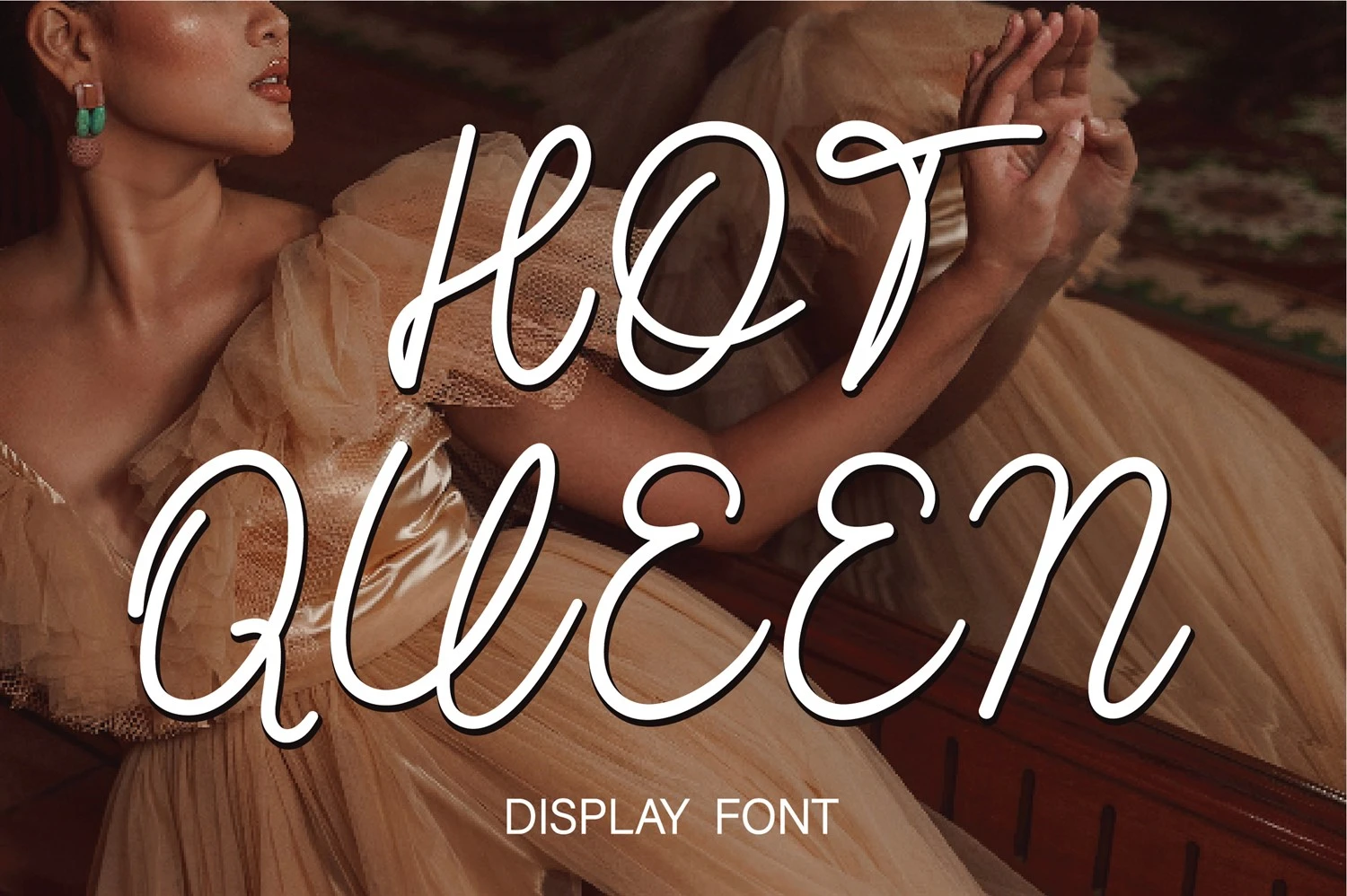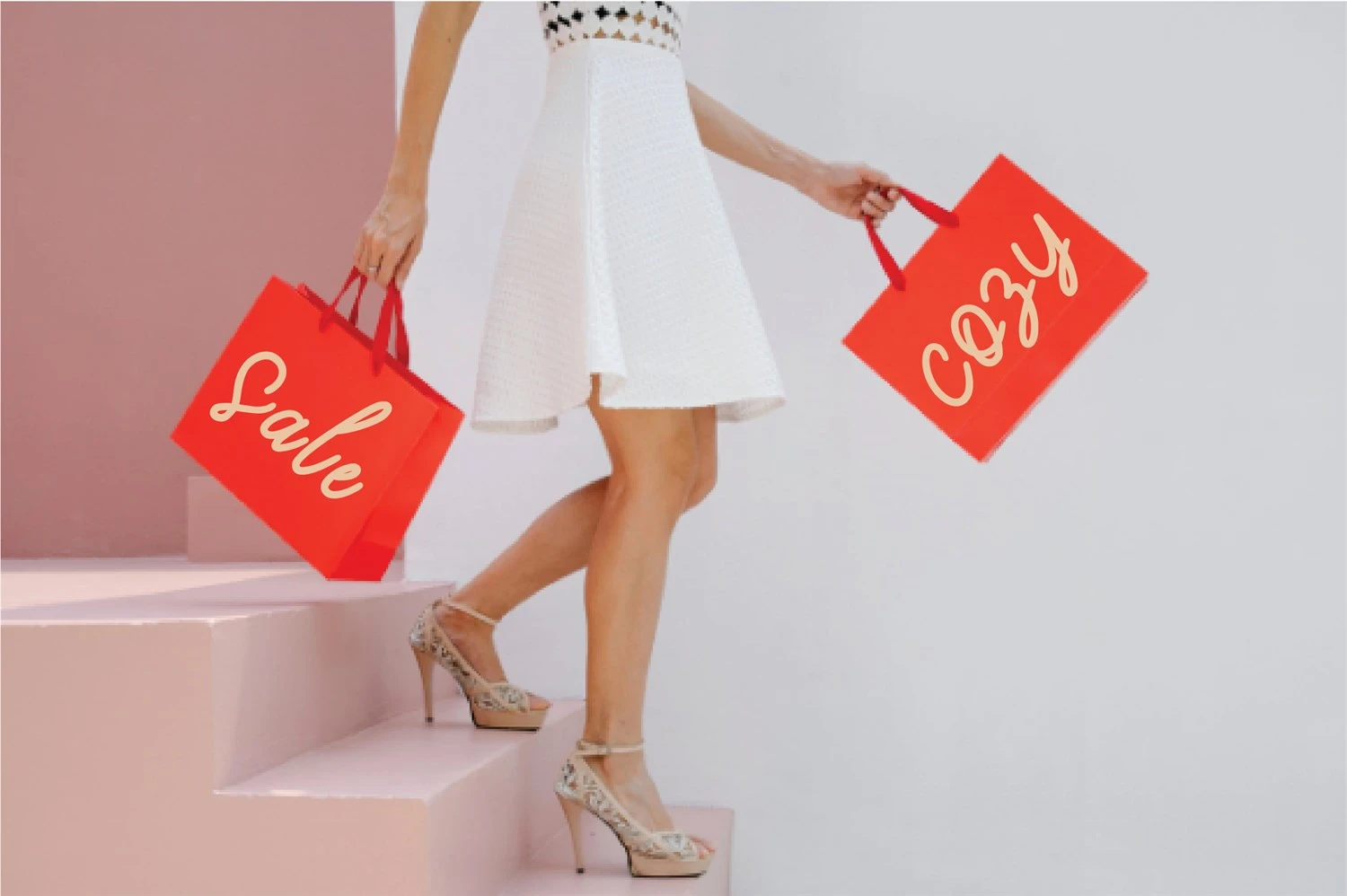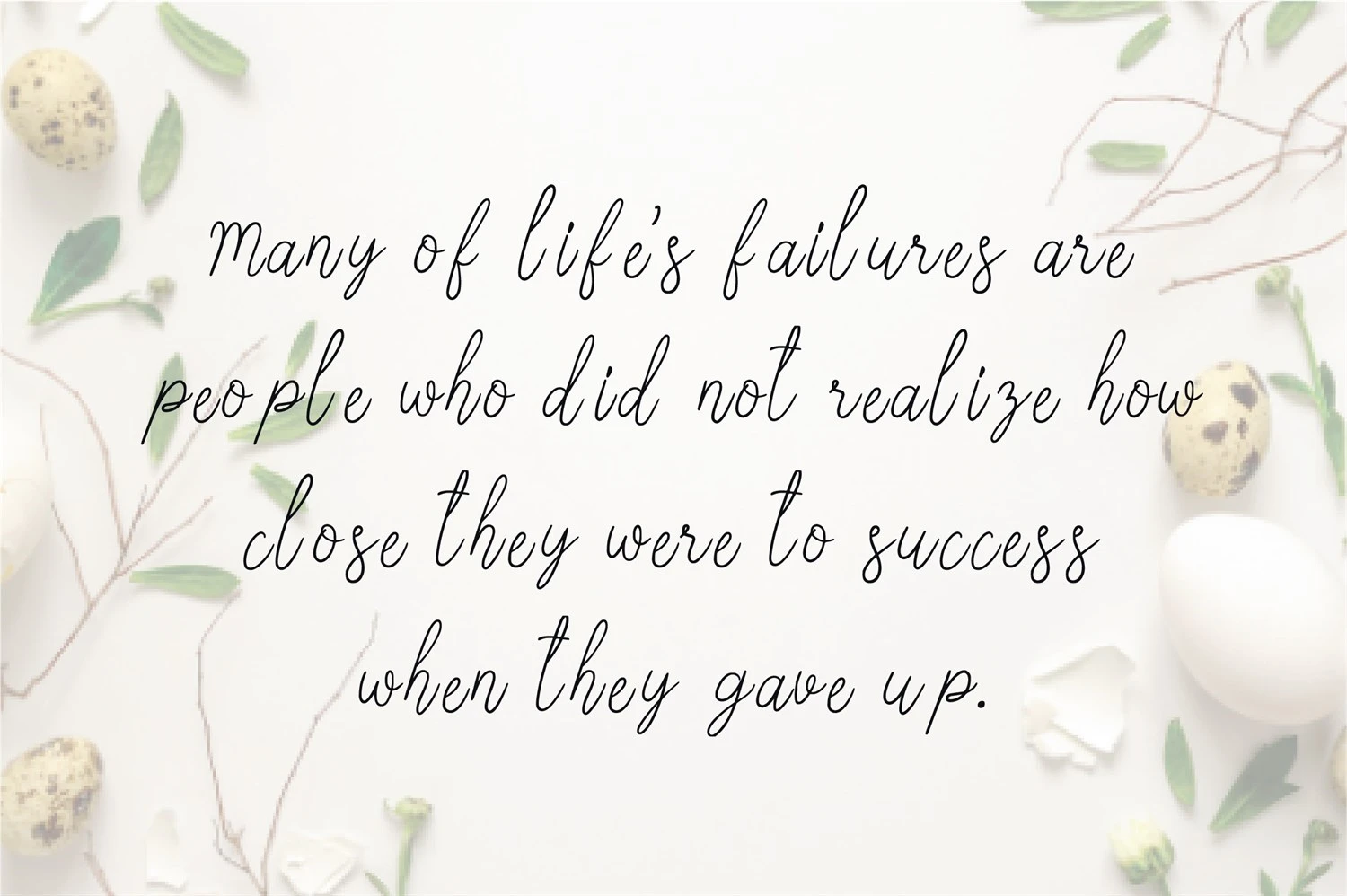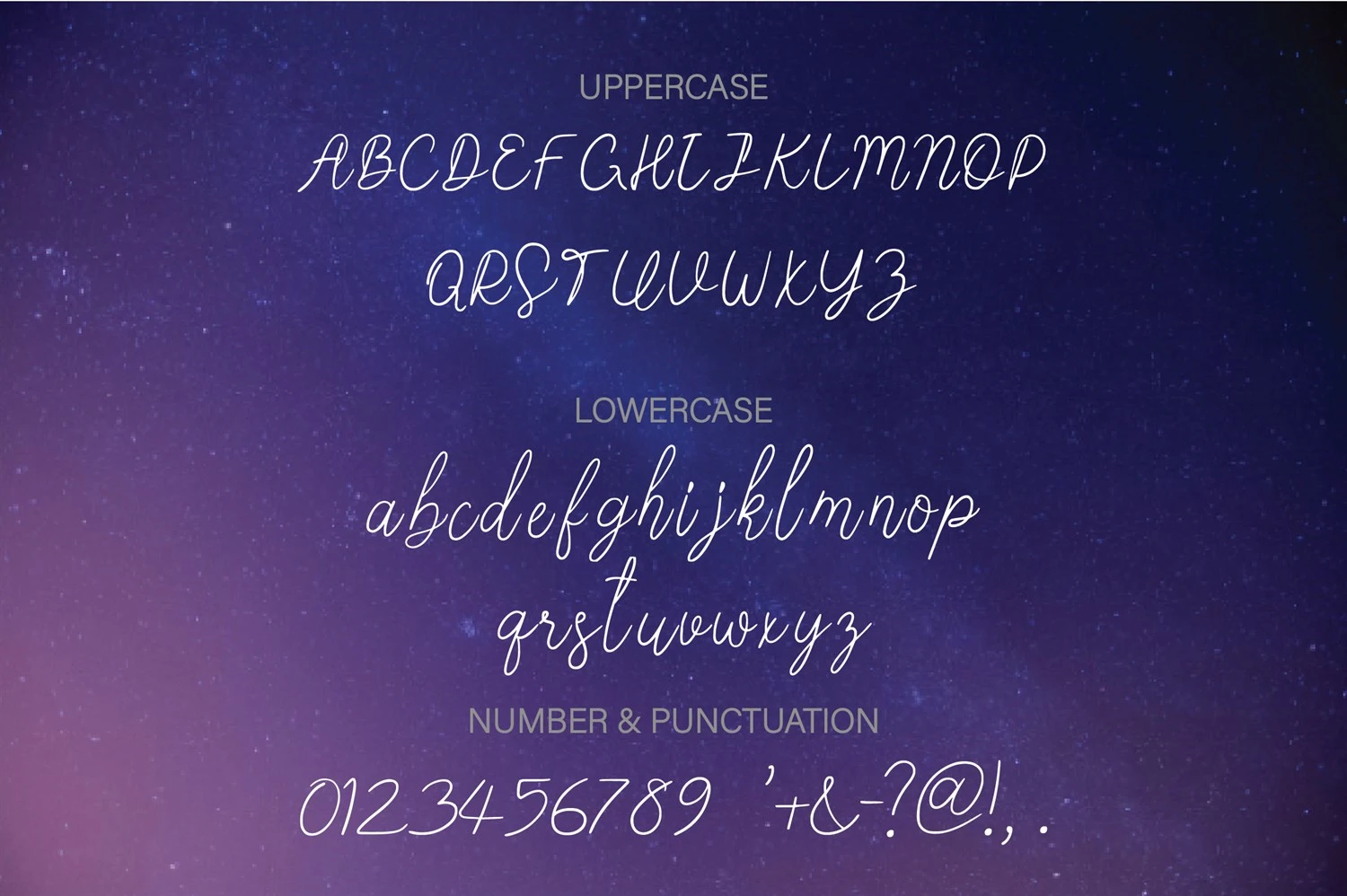
Hot Queen is a minimal and beautiful script font that can make your projects look lovely! It is the best choice for creating eye-catching logos, branding materials, quotes, wedding card or souvenir design.